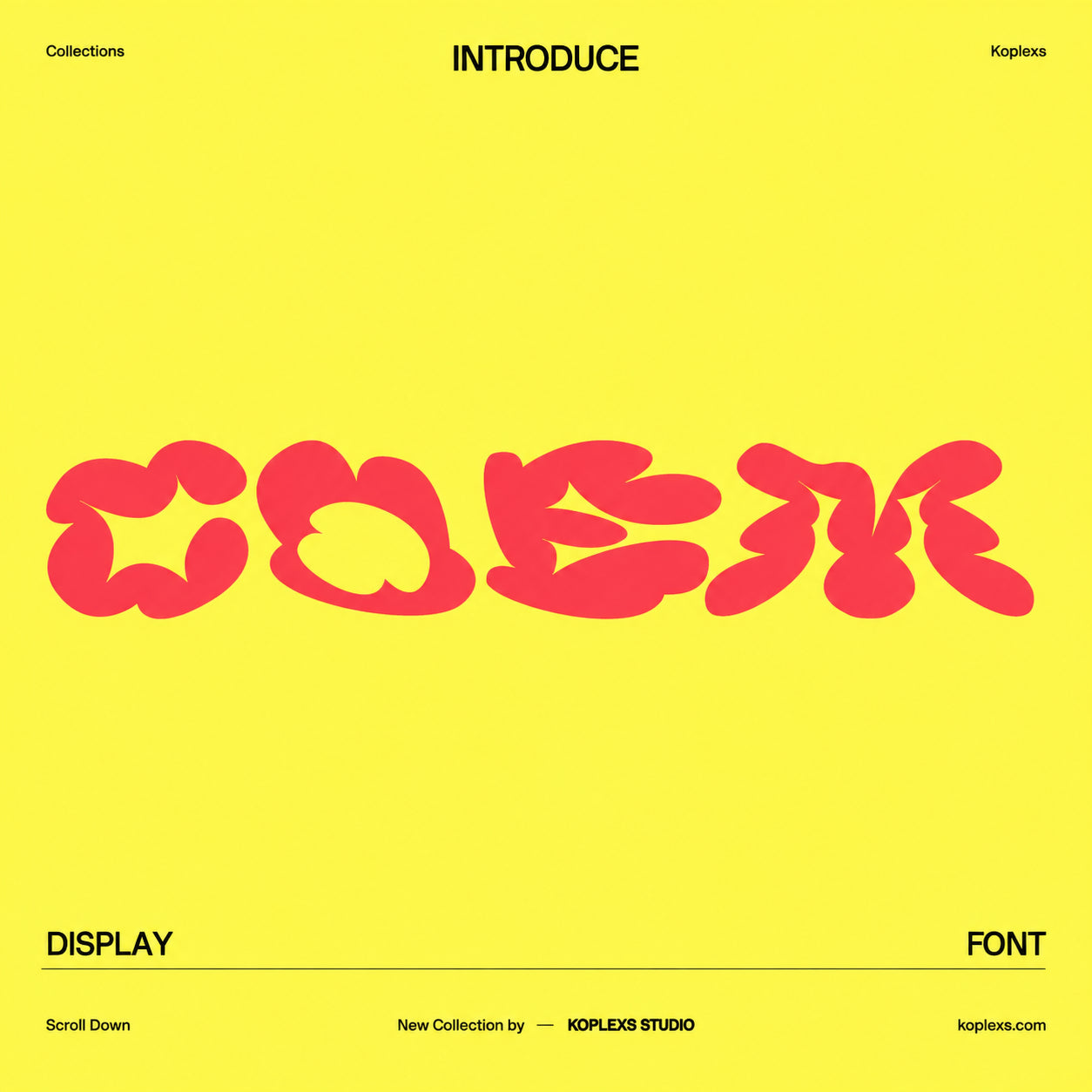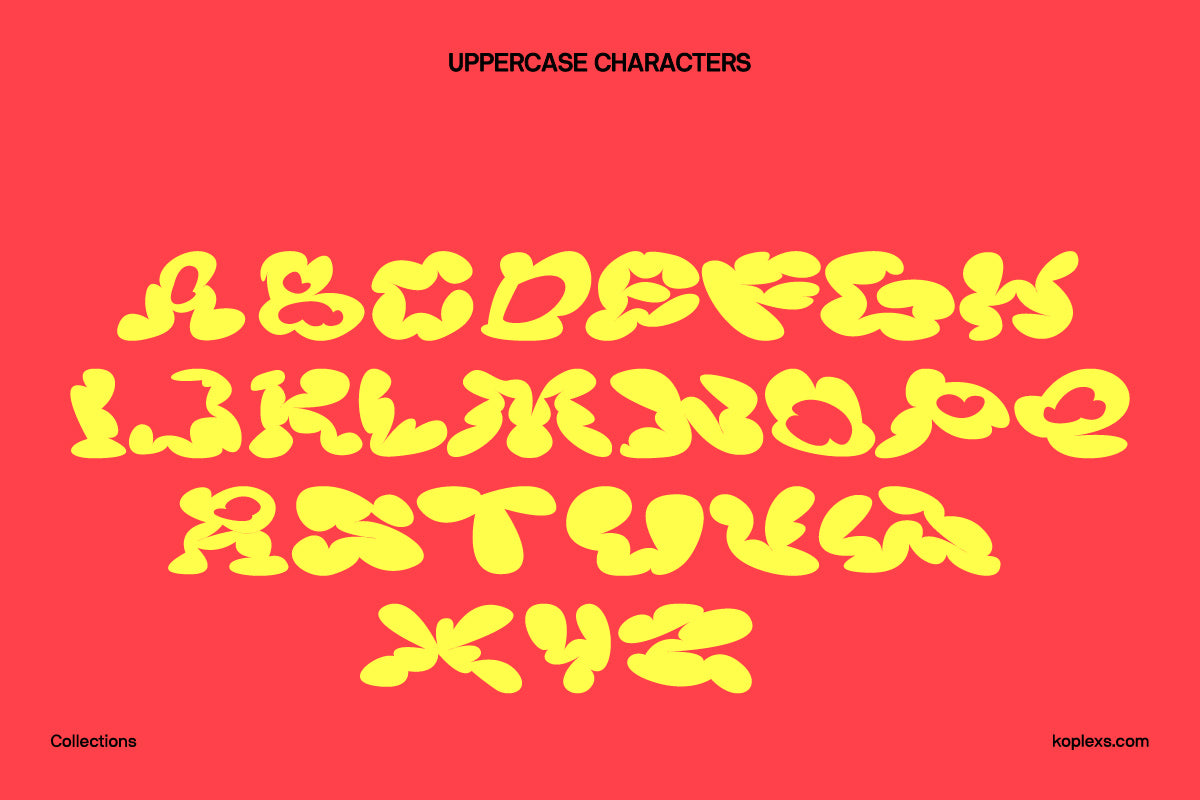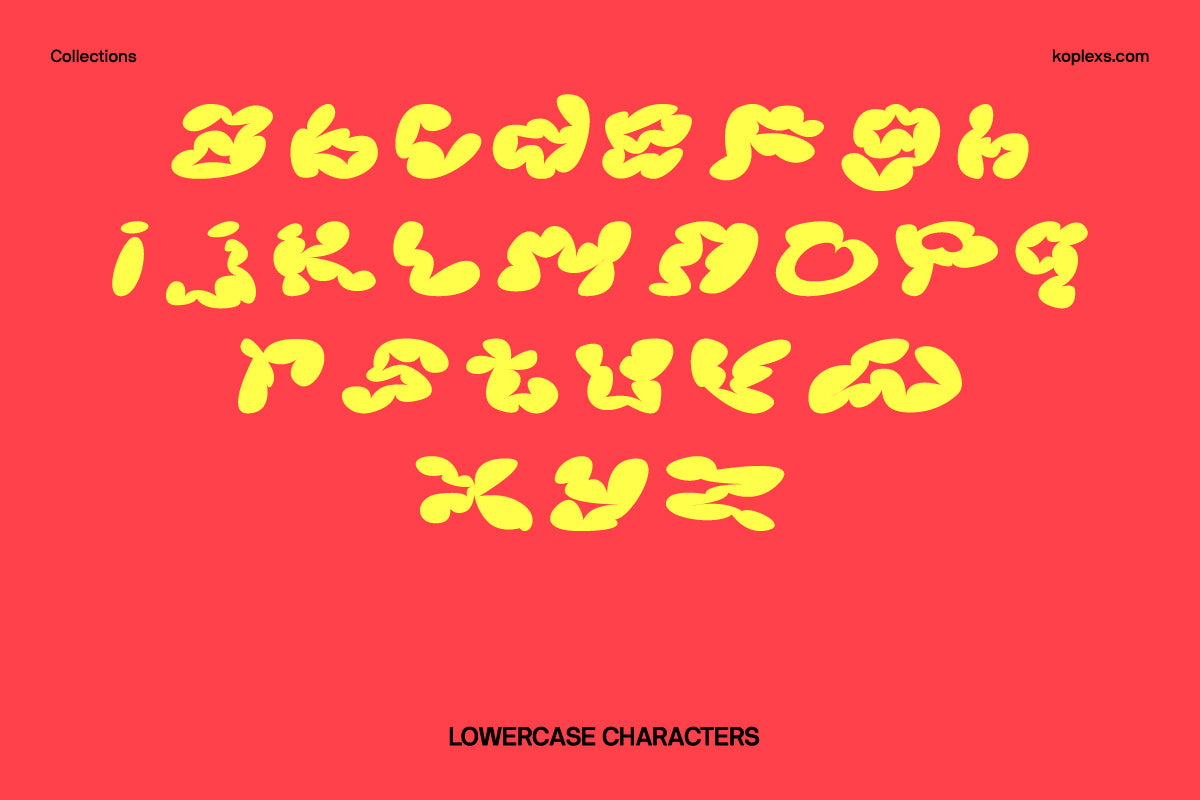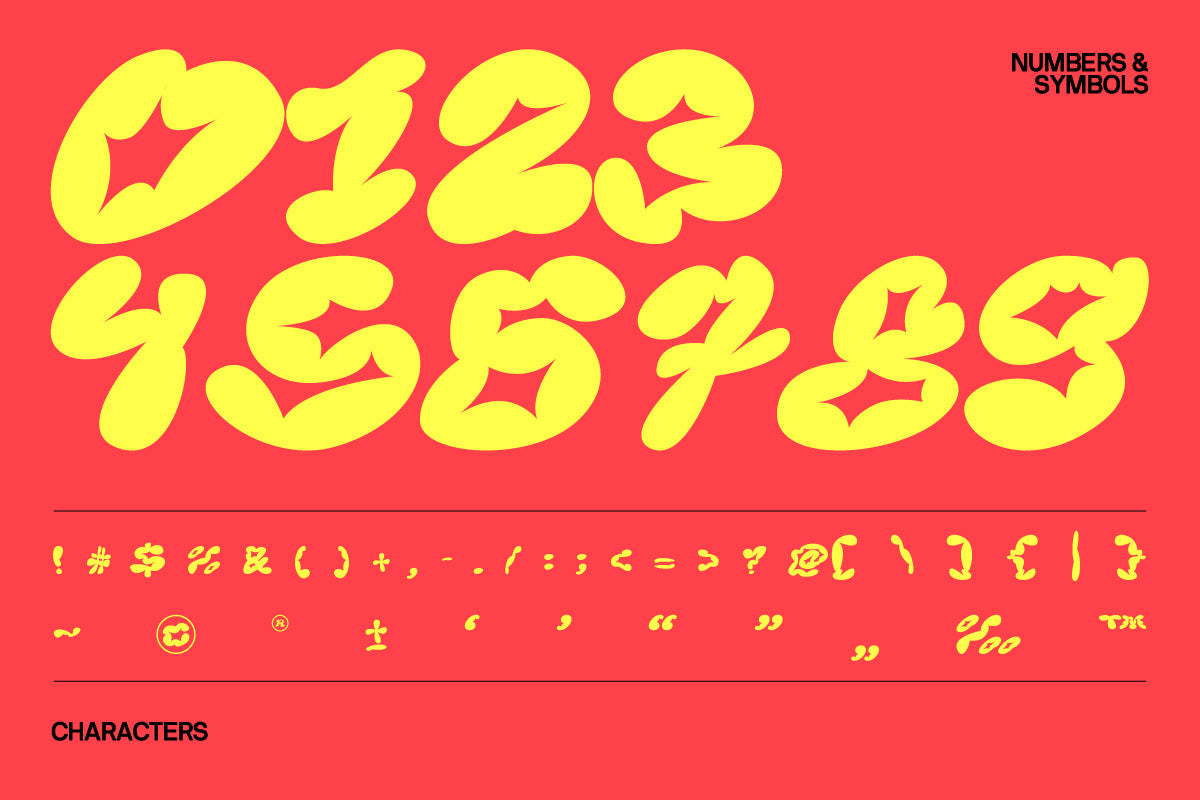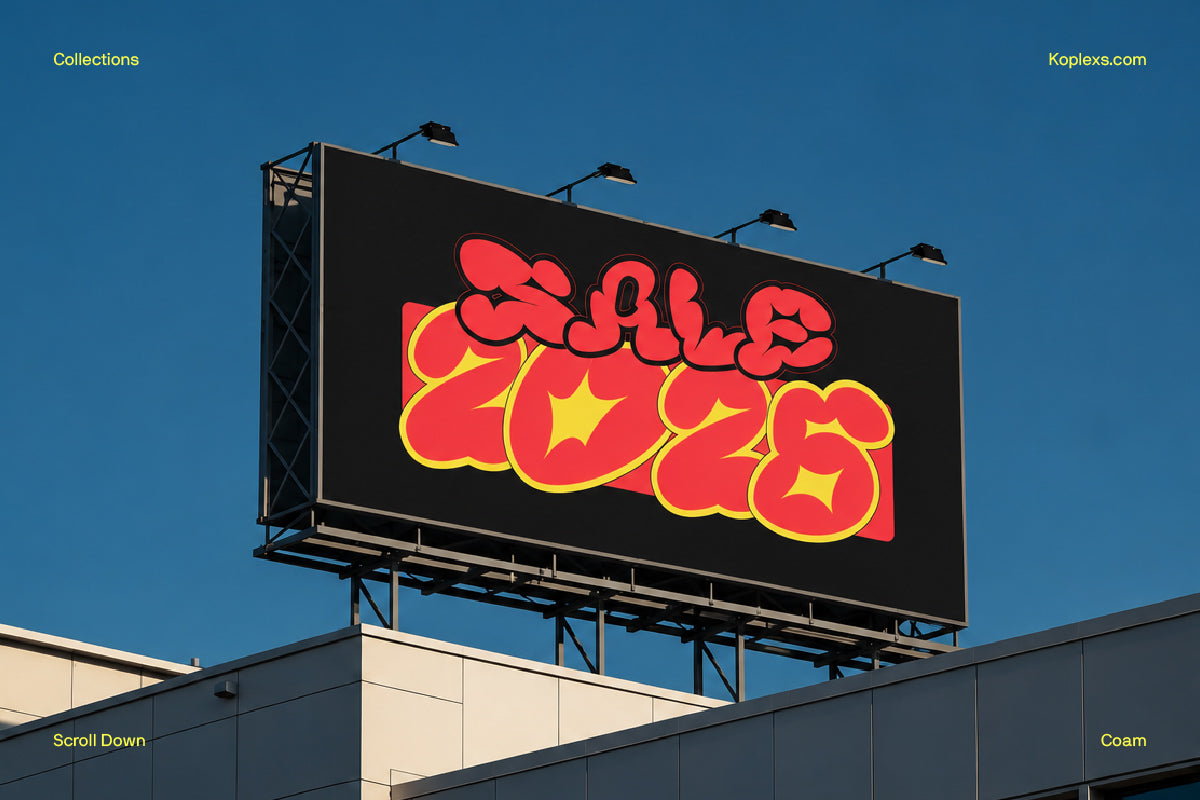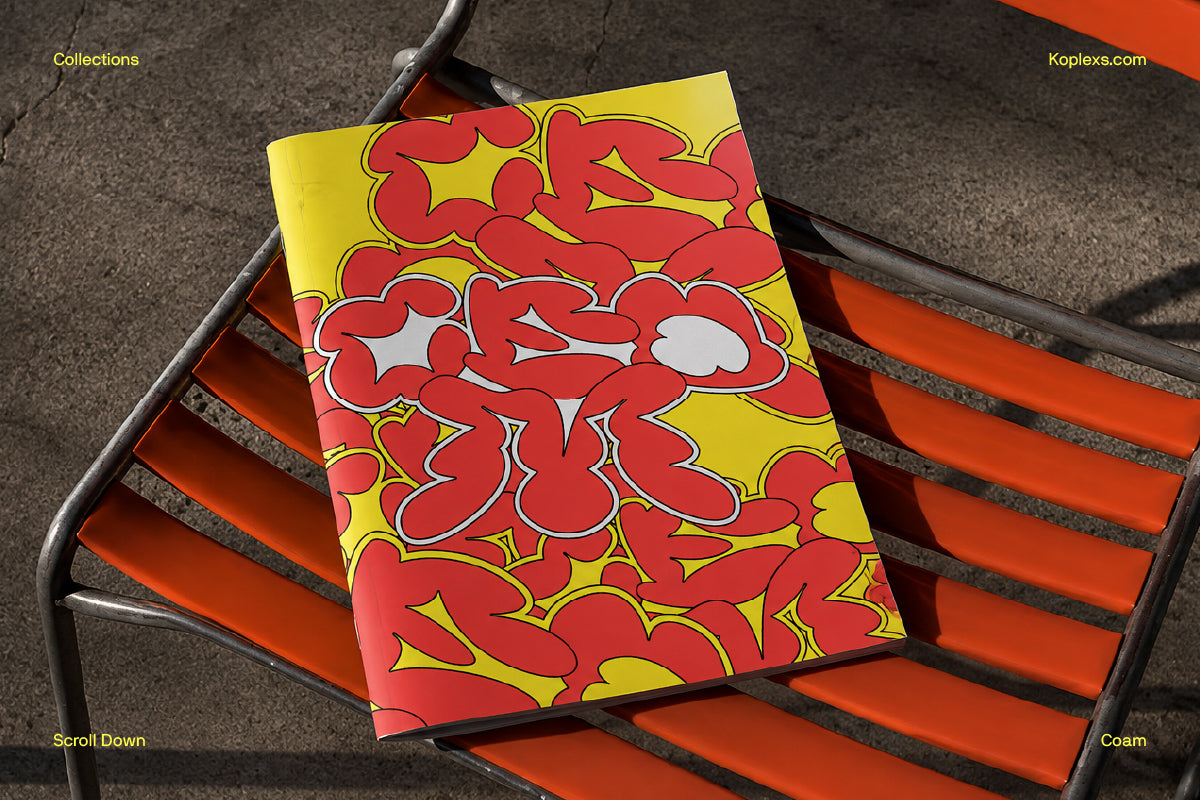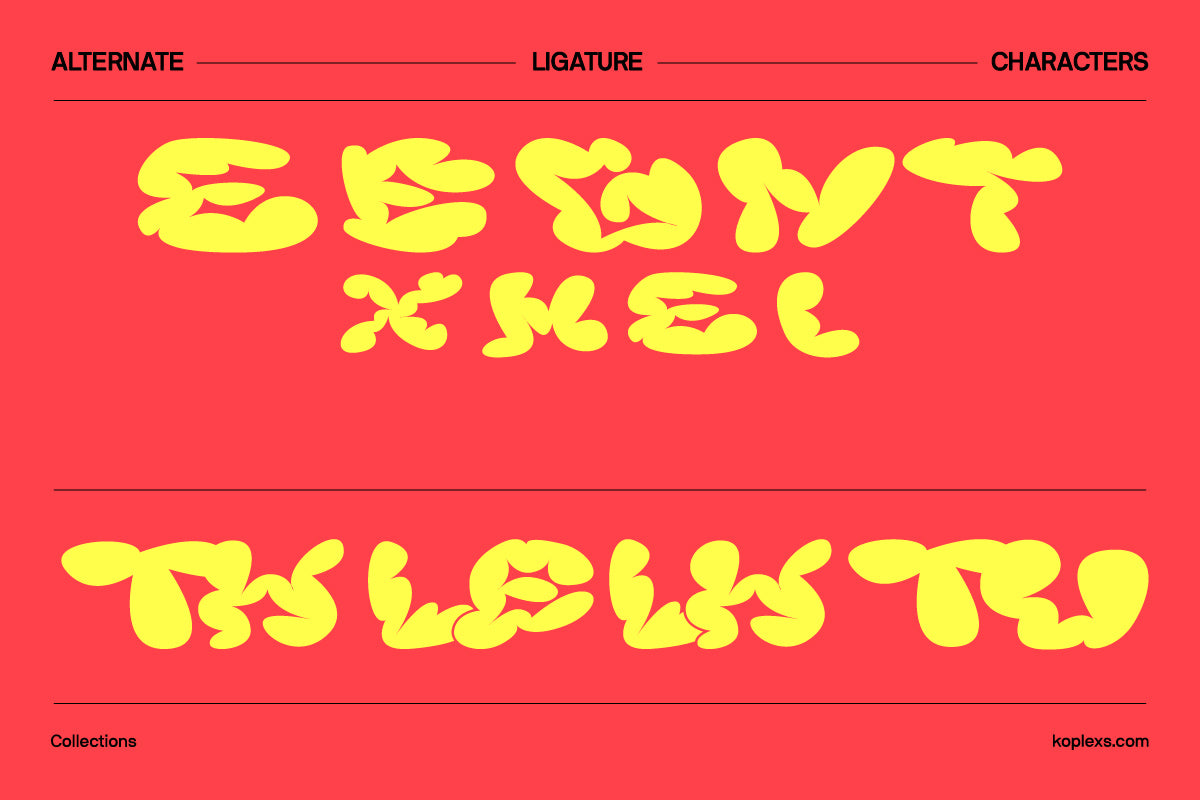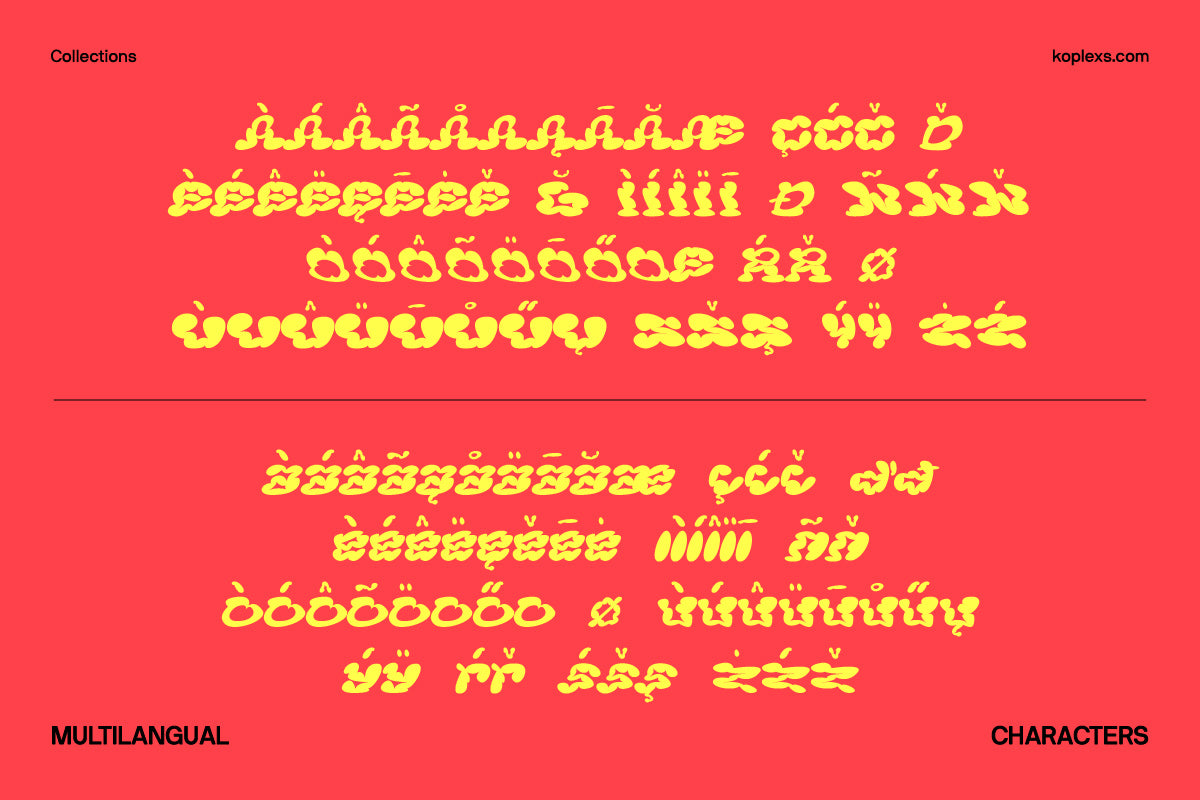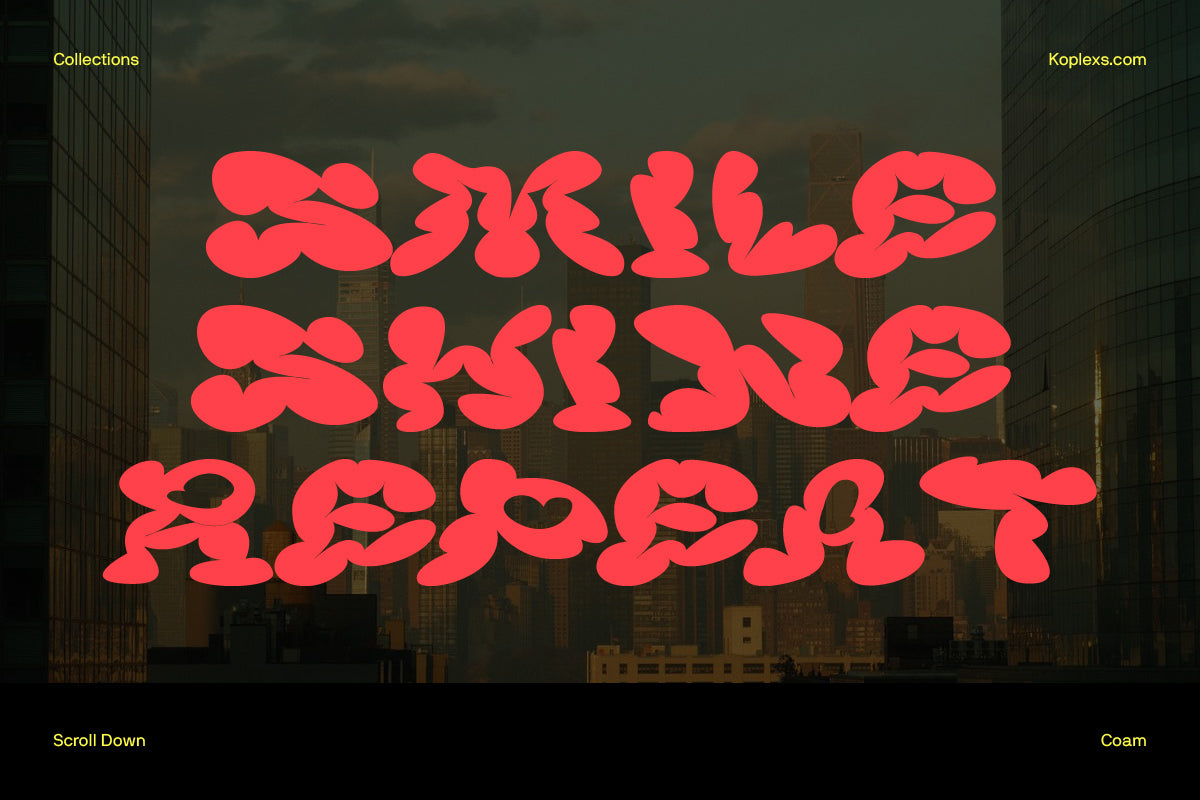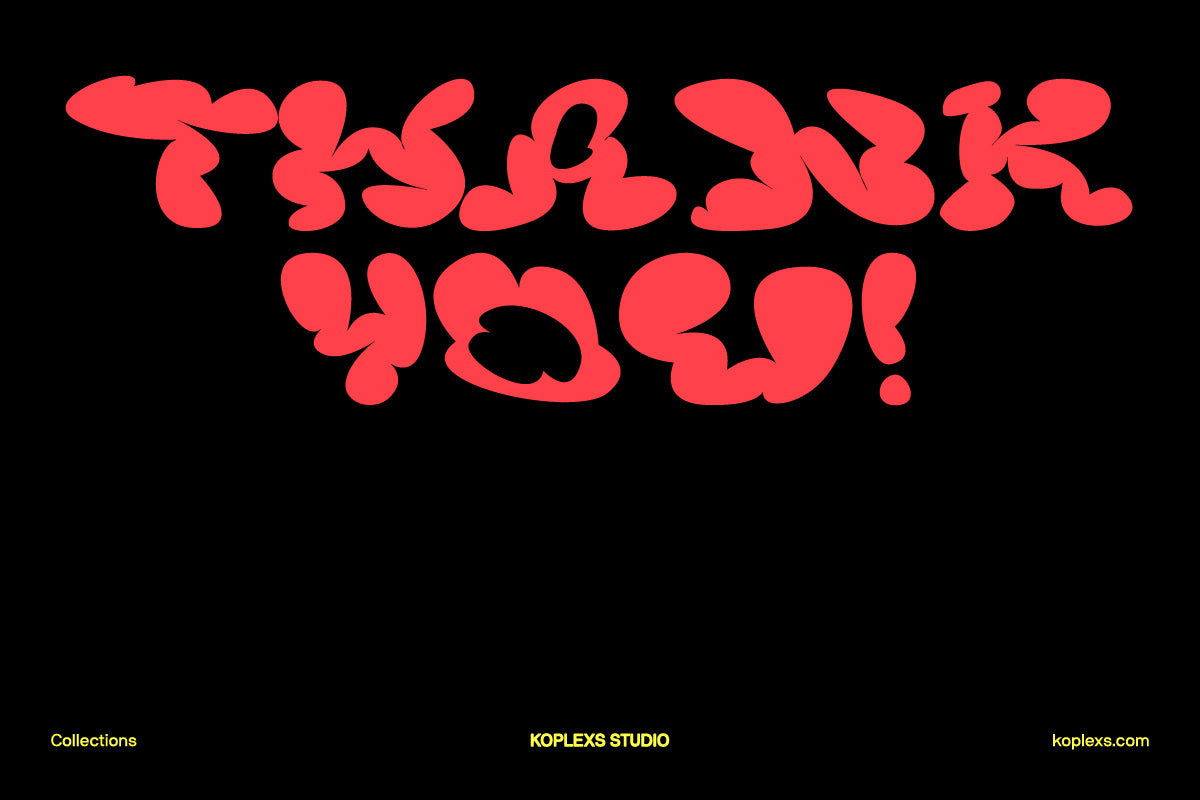
Coem - Graffiti Bubble Display Font
Coem is an expressive graffiti bubble display font built around fluid shapes, playful curves, and an unconventional visual rhythm. Each character feels almost like a graphic element of its own, giving words an energetic and instantly recognizable personality.
Inspired by graffiti lettering, retro graphics, psychedelic visuals, and experimental typography, Coem brings a loose and artistic attitude to contemporary design. Its rounded forms and unusual proportions create a distinctive look that feels playful, rebellious, and full of movement.
Made for designs where typography deserves to take center stage, Coem works especially well at large sizes and pairs naturally with vibrant colors, photography, textures, and expressive layouts.
Perfect for:
Posters and flyers
Album covers and music artwork
Streetwear and apparel
Logos and visual identities
Merchandise graphics
Packaging and labels
Editorial covers
Social media campaigns
Festival graphics
Stickers
Creative advertising
Experimental typography
Coem is a great choice for designers looking to move away from predictable lettering and create something with more personality. Whether you're working on a music release, fashion project, poster series, or unconventional brand identity, its distinctive shapes help turn simple words into memorable visual statements.
Coem is a graffiti bubble display font featuring rounded forms, fluid shapes, and unconventional proportions. It is designed for large-scale use and includes stylistic elements inspired by graffiti lettering, retro graphics, and experimental typography.